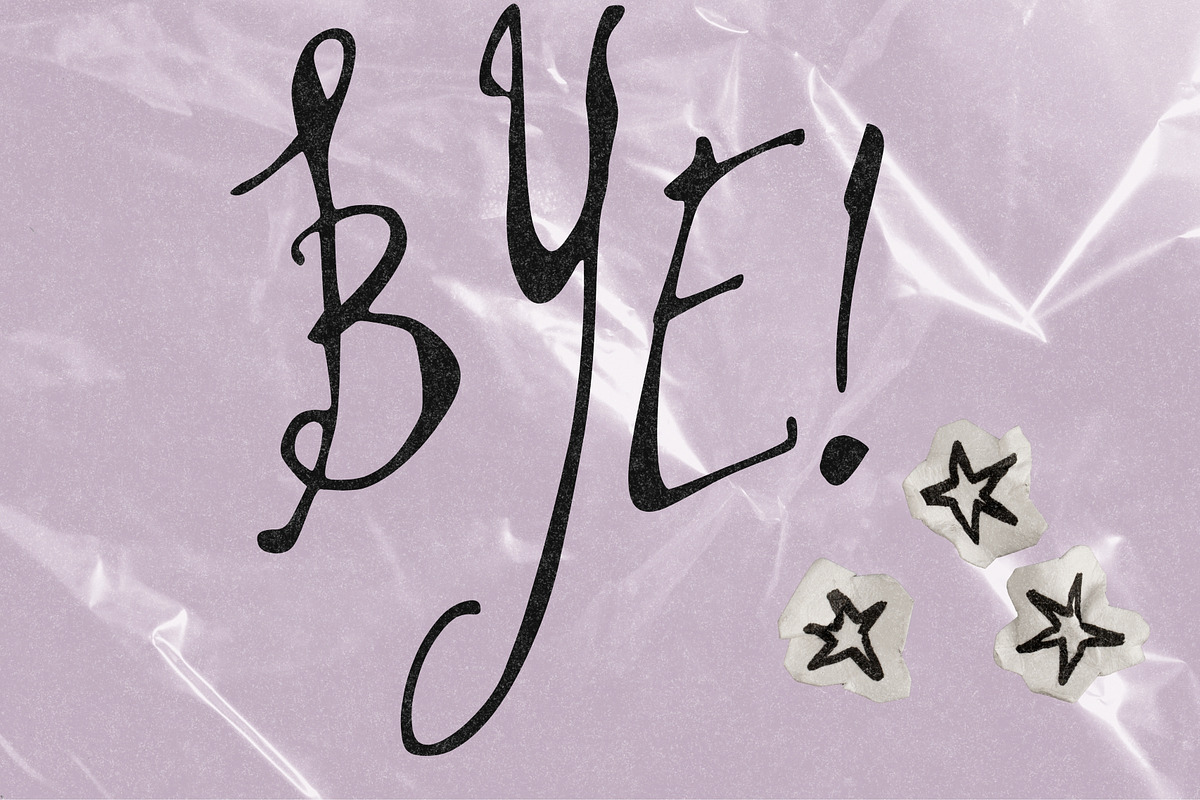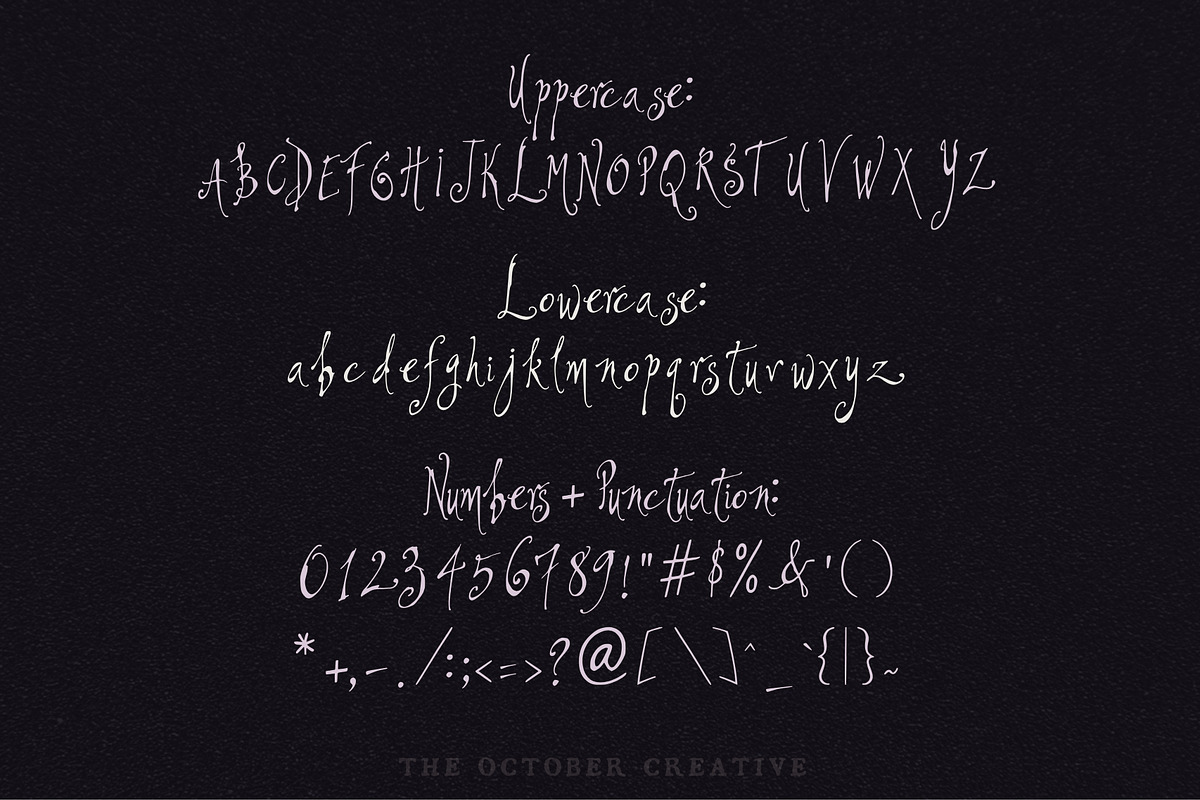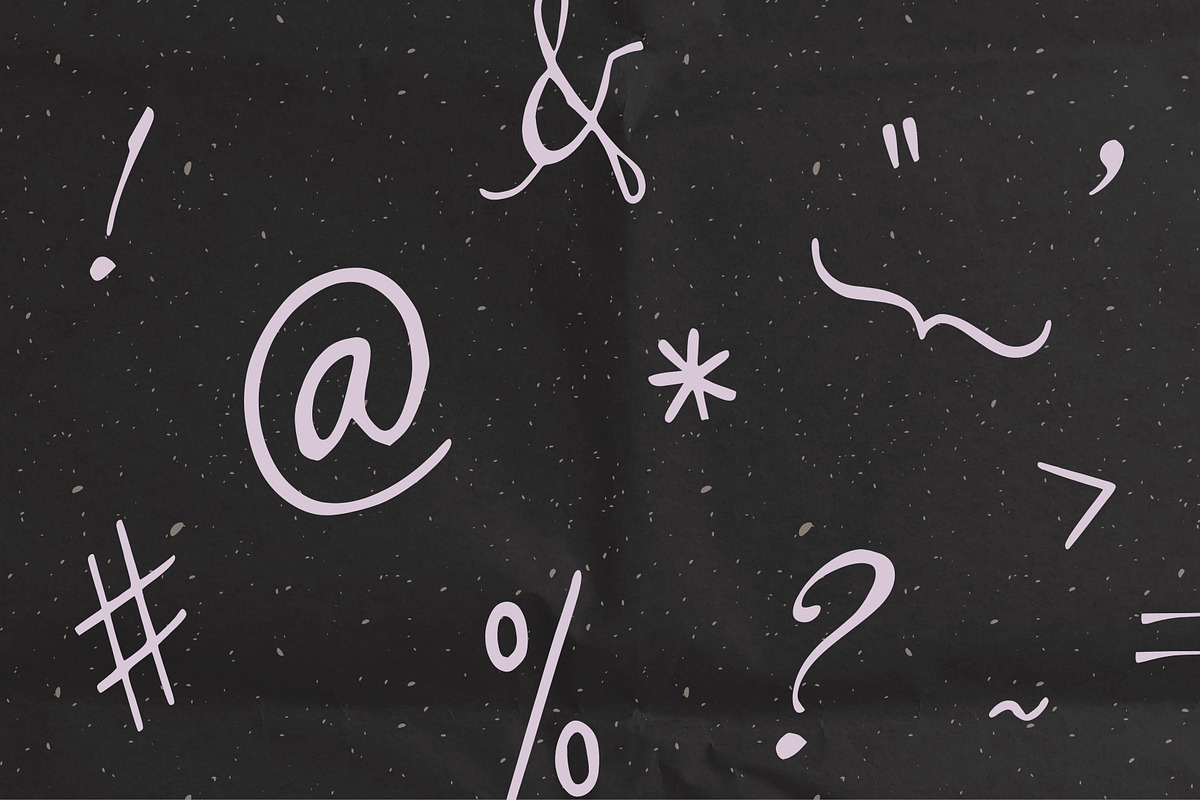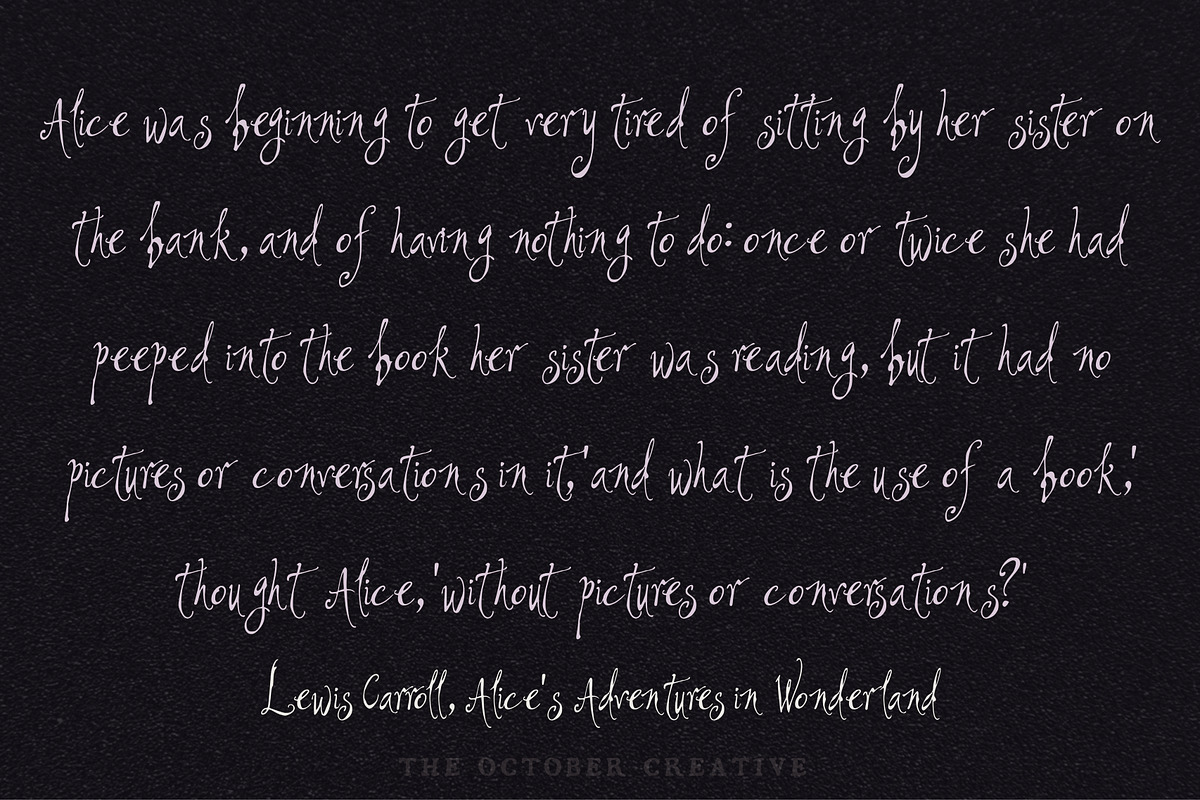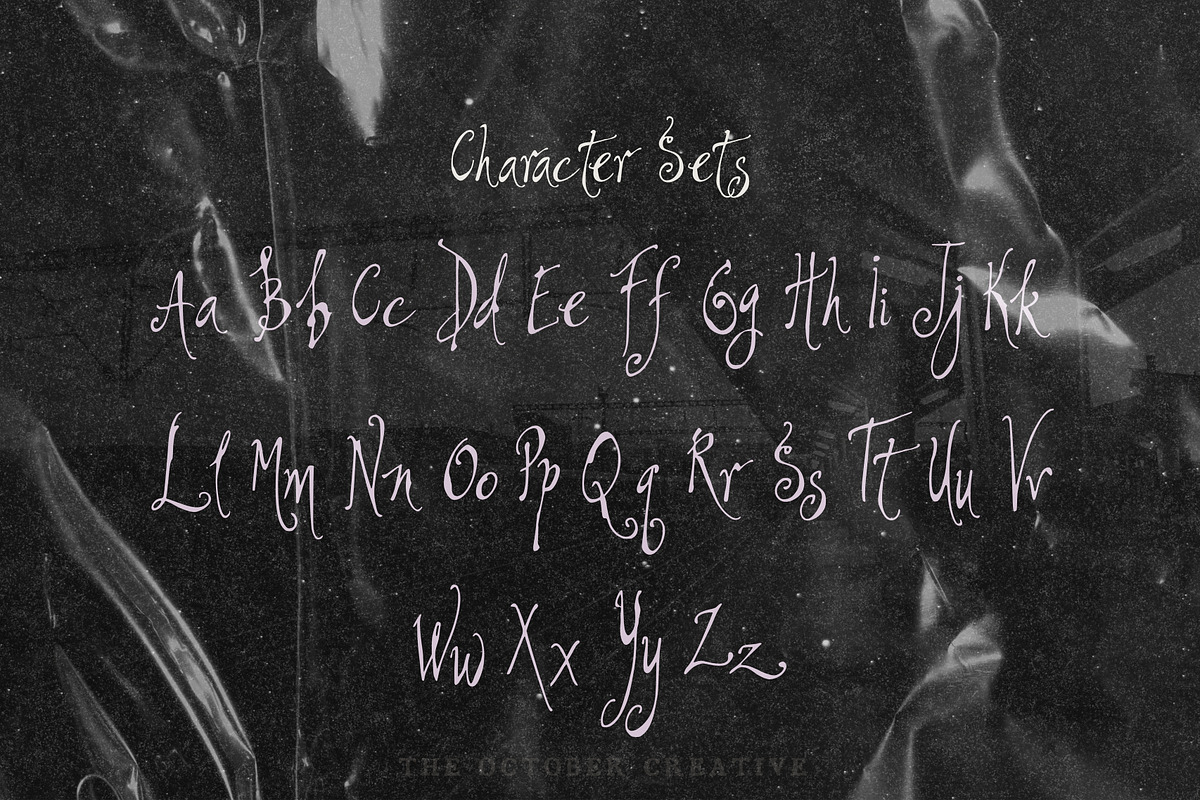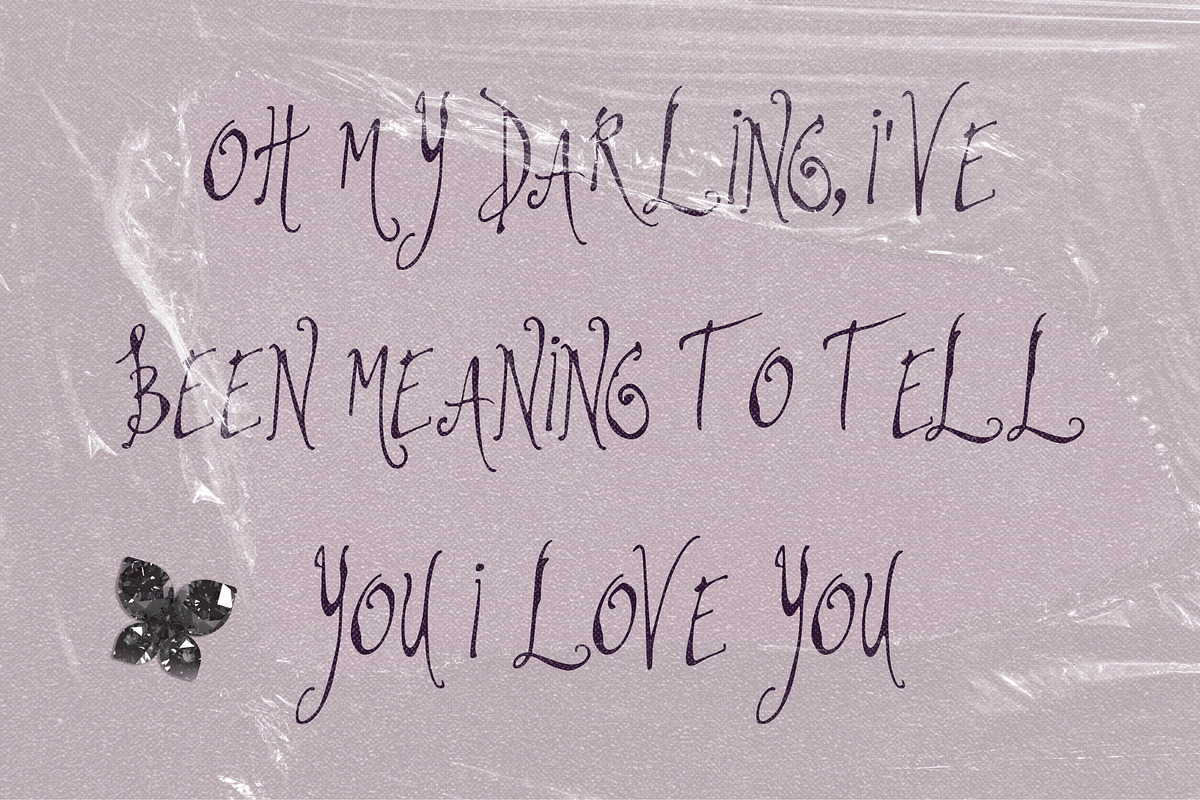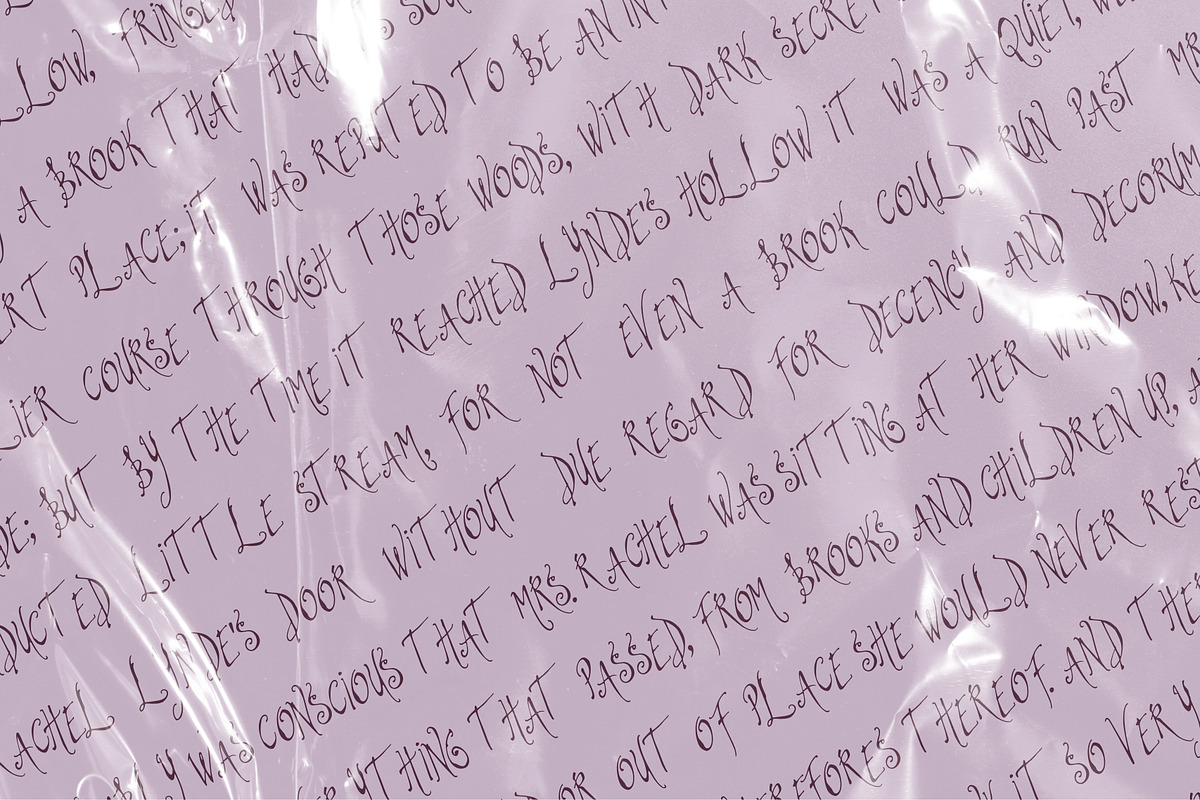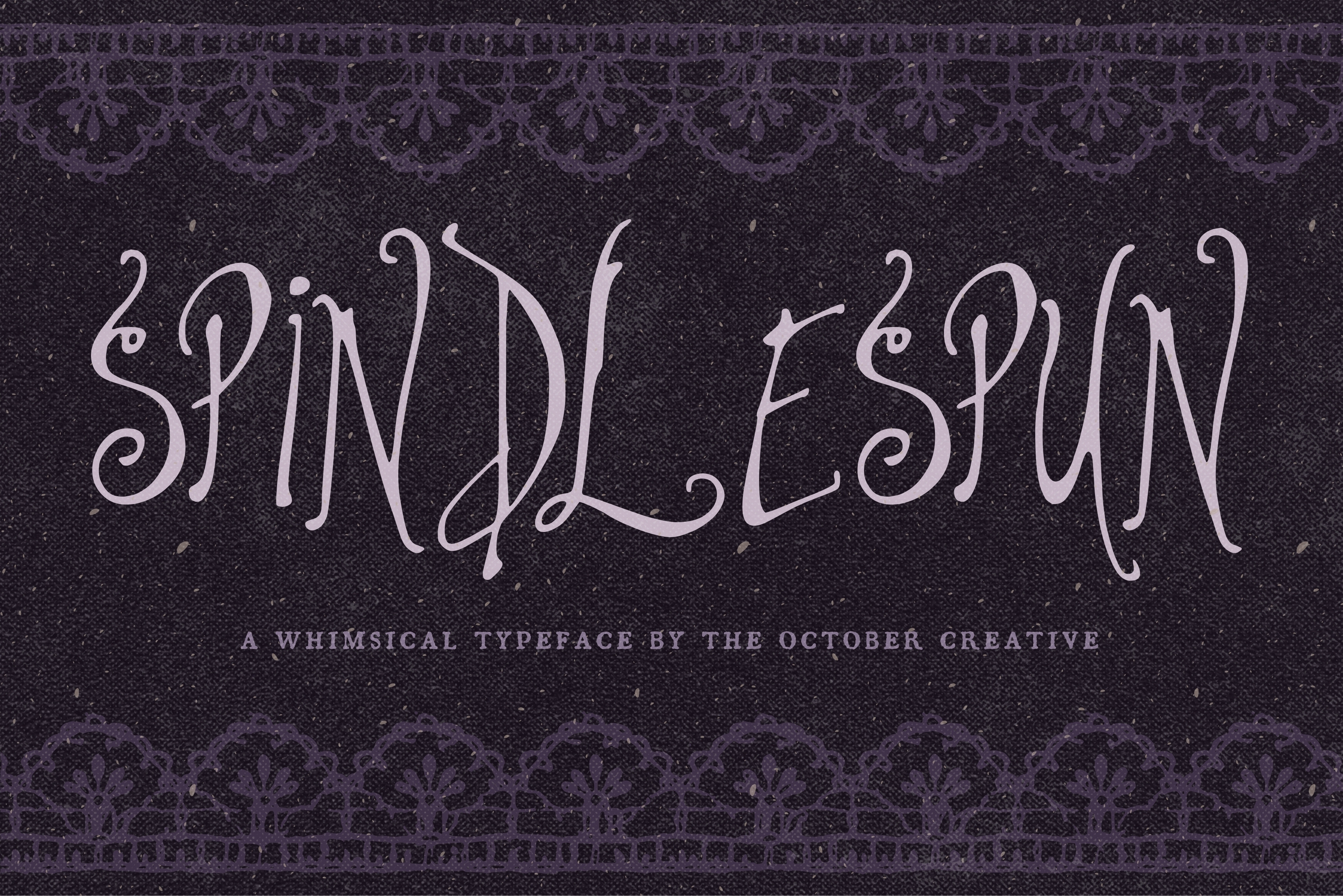
Spindlespun Spindly Display Font
Spindlespun is a spindly display font with long thin ascenders over small tight bowls, so the whole face runs vertical and narrow. It fits fairytale prints, woodland invitations, storybook titles, and delicate stationery.
CHARACTER SET
Uppercase A to Z, lowercase a to z, numerals 0 to 9, and every standard keyboard punctuation mark and symbol: ! " # $ % & ' ( ) * + , - . / : ; < = > ? @ [ \ ] ^ _ ` { | } \~
Curly quotes and apostrophes (‘ ’ “ ”), en and em dashes, an ellipsis, and a bullet.
Accented letters: À Á Â Ã Ä Å Ç È É Ê Ë Ì Í Î Ï Ñ Ò Ó Ô Õ Ö Ù Ú Û Ü and their lowercase forms.
LANGUAGES SUPPORTED
English, plus the accented vowels, Ñ, and Ç used in names and everyday words in Spanish, French, Italian, Portuguese, German, and Dutch. Not included: ß, Æ, Ø, Œ, and the upside-down ¿ and ¡.
SPECIAL CHARACTERS